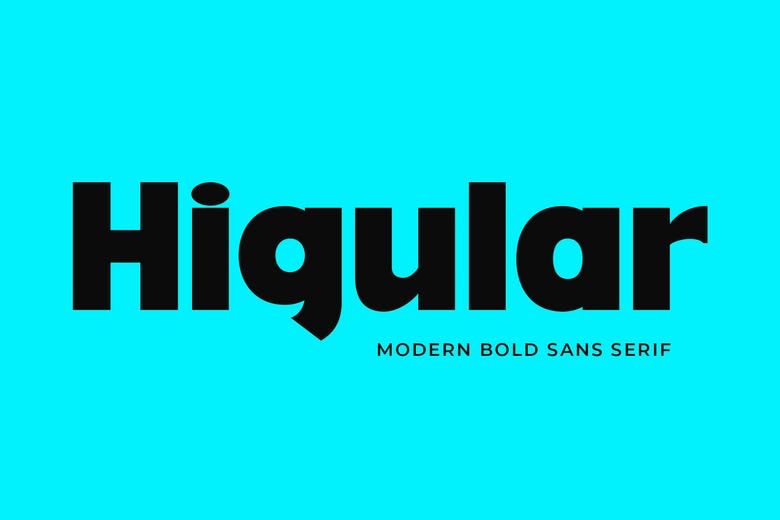
Higular Font
Higular is a beautiful and classical sans serif font. It enjoys the most popularity to be used in the production of eye catching logos, branding and quotes. Each letter has its own and gorgeous touch, so your design will make wonders!
Higular Sans Serif Font